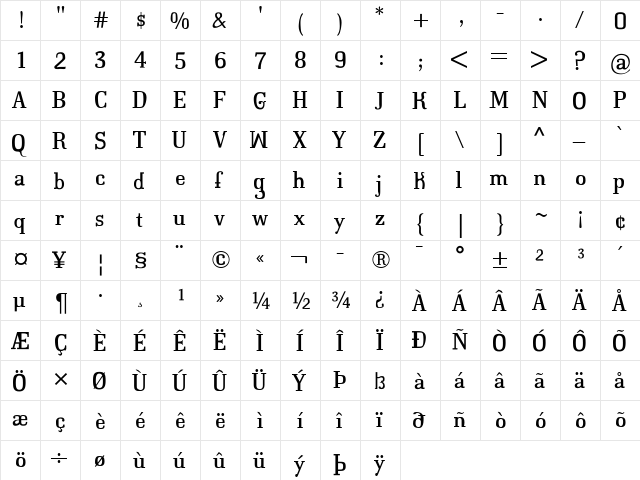
Calvino Regular
| Foundry | Designed by Elliott Peter Earls, The Apollo Program |
Design Context for Calvino Typeface
Calvino is a composed and adaptable typeface that performs quietly and consistently across a wide range of design contexts.